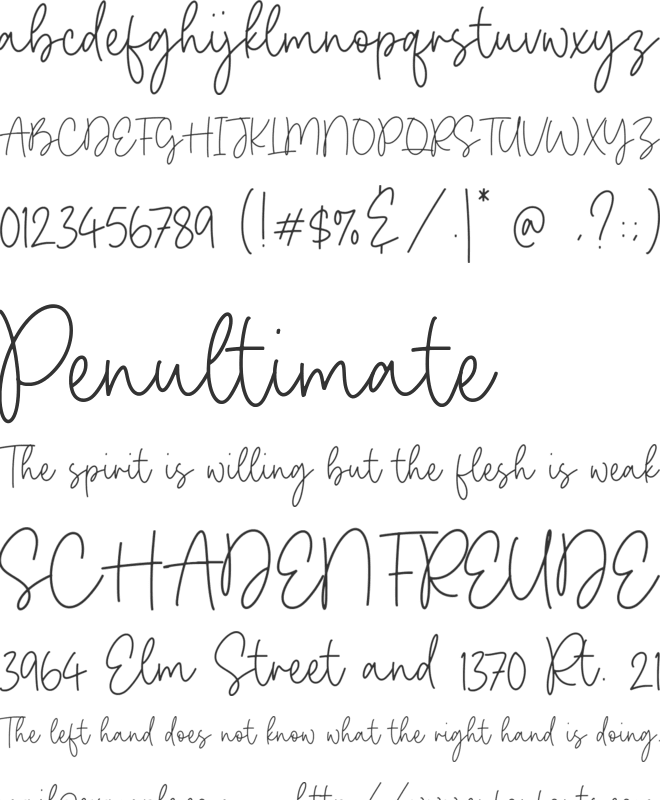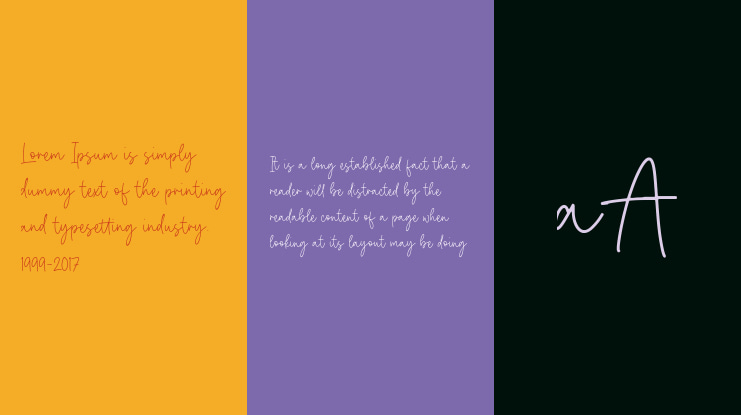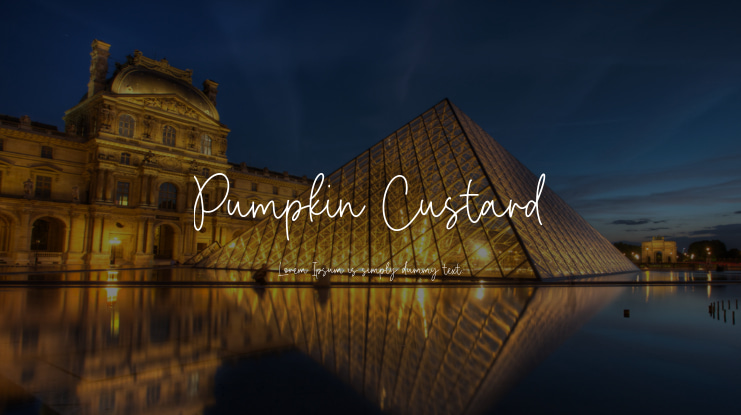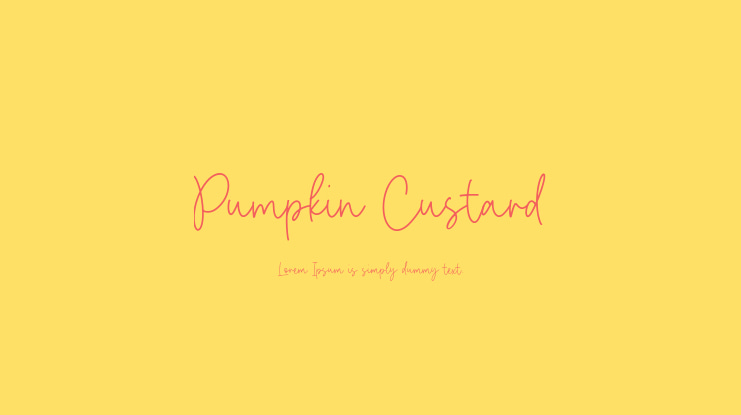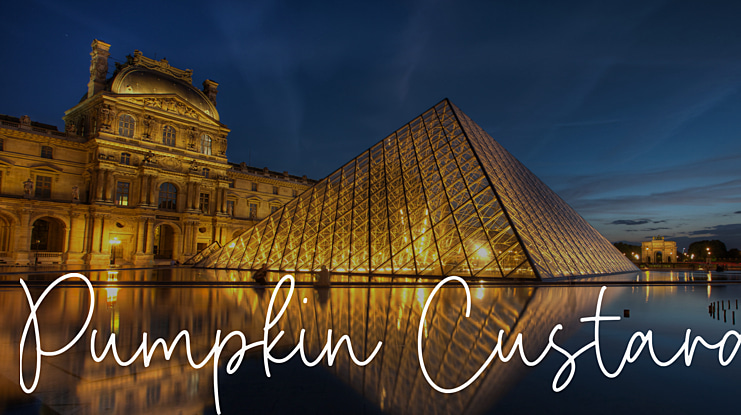
Pumpkin Custard Font
Introducing by Letterative Studio : Pumpkind Custard Font
Pumpkind Custard is a Modern Handwritten Font.
Pumpkind Custard with an elegant style, is here to give a luxurious impression to your design, made with consistent strokes so as to produce works that will perfect your design.